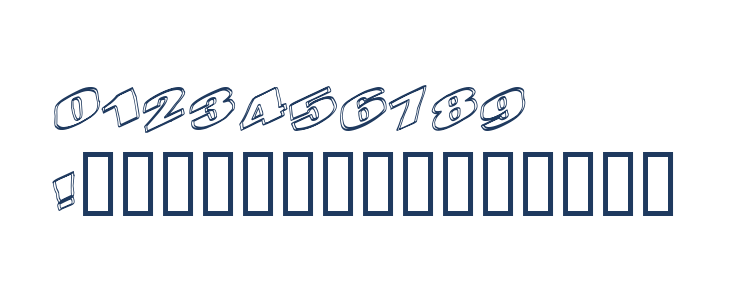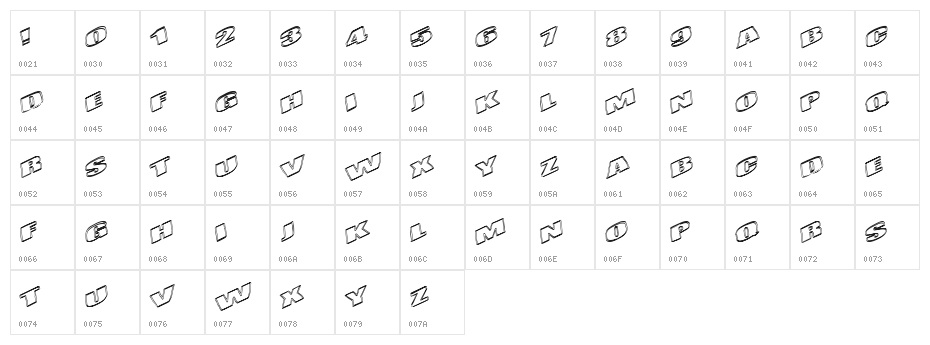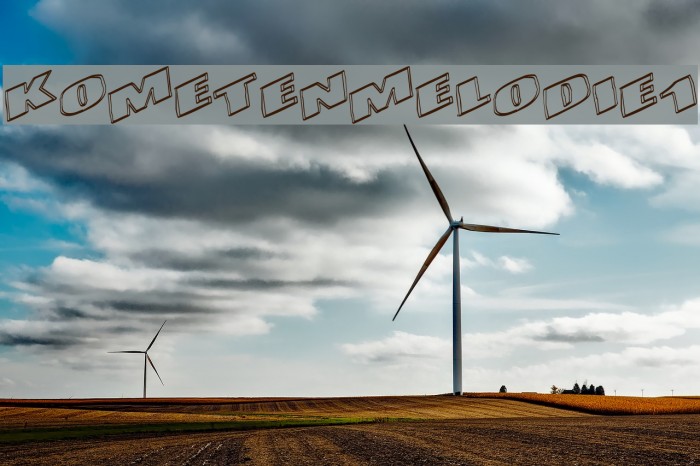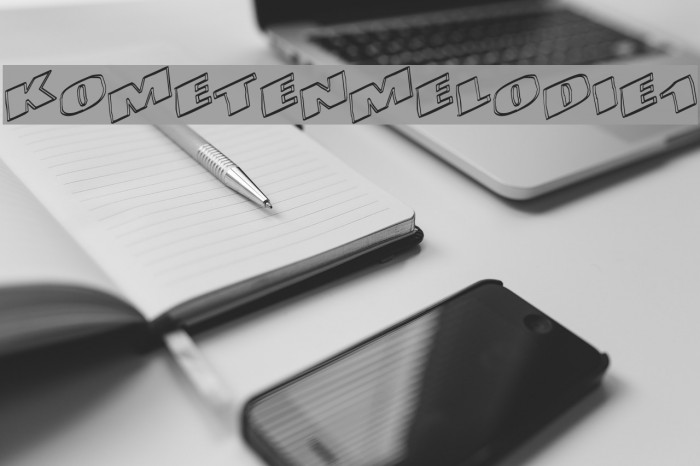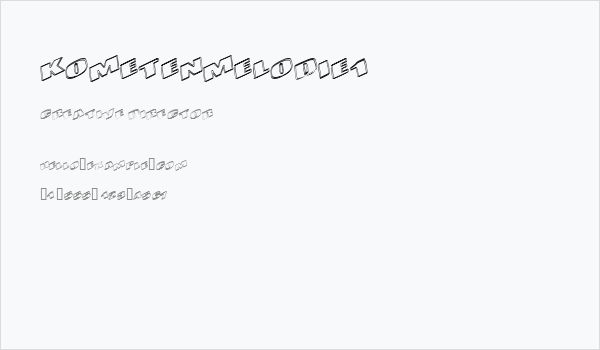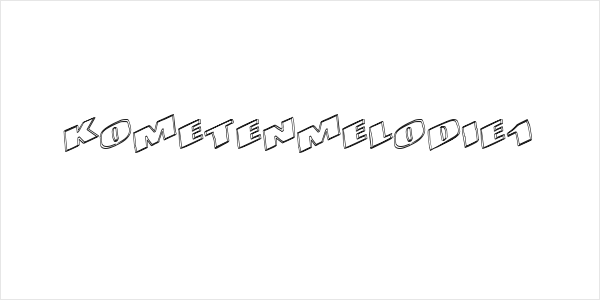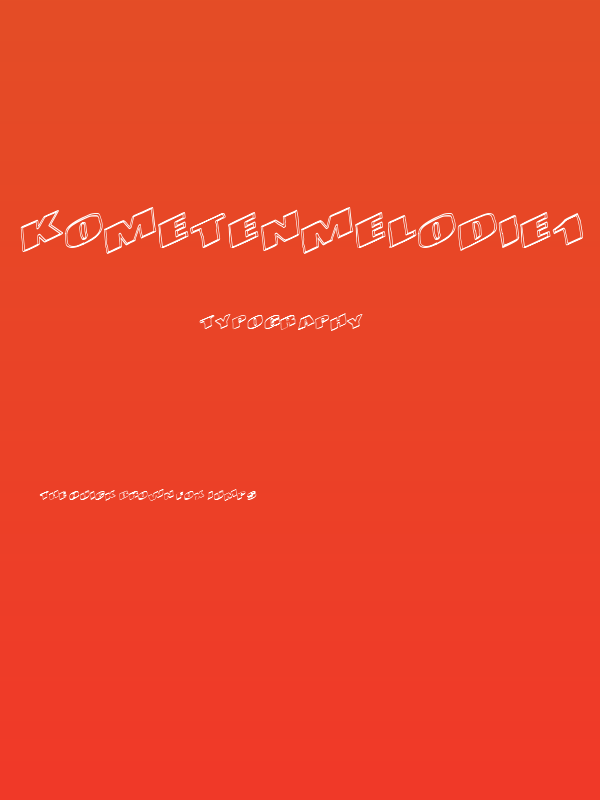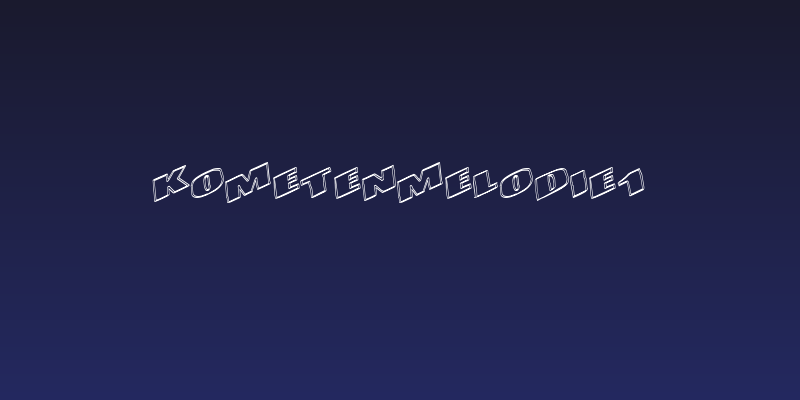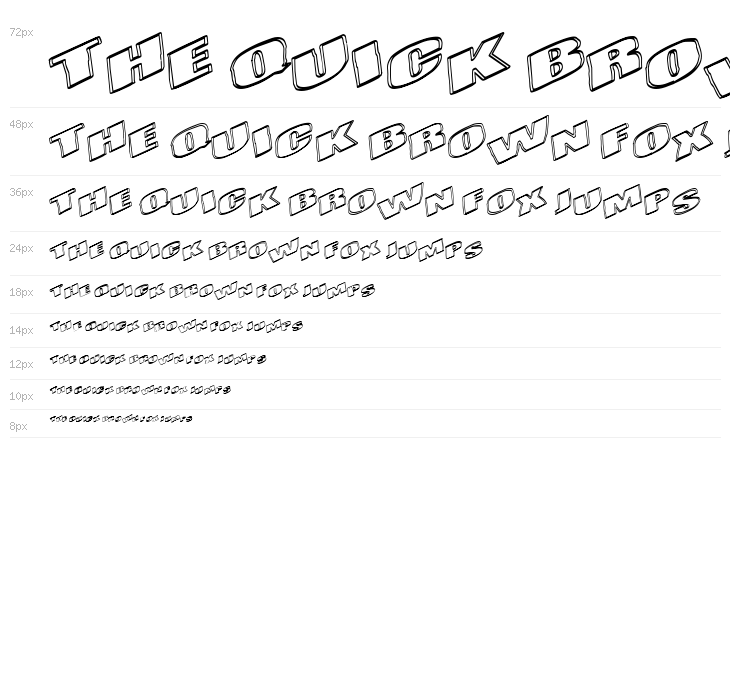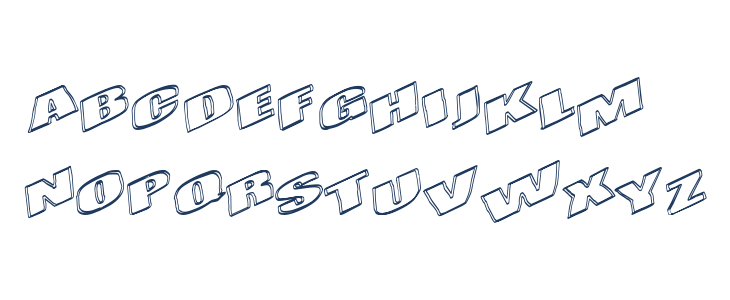
KometenMelodie1 Font
KometenMelodie1 Description
This font features a bold, three-dimensional design with a distinct shadow effect that gives each character a sense of depth and dynamism. The uppercase and lowercase letters maintain a consistent style, with clean lines and sharp angles that create a modern and impactful appearance. The numerals and special characters follow the same design principles, ensuring a cohesive look across all elements. This font's unique style makes it stand out, with a playful yet professional vibe that can add character to any project.
| Proposed Projects | Ideal for posters, headlines, logos, and any design needing a bold, eye-catching typeface. |